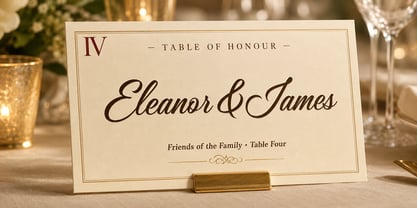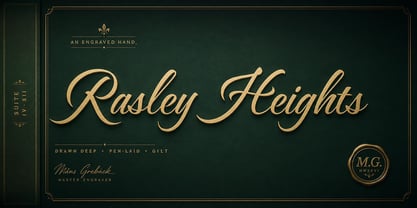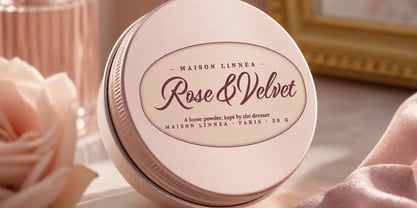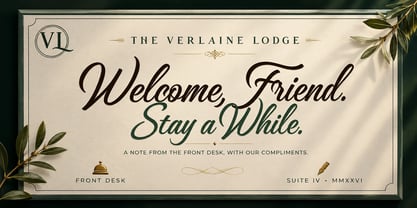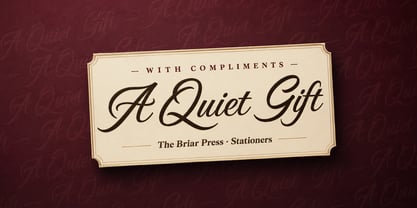
Rasley Heights
Rasley Heights is a high-contrast calligraphy script built around long, drawn-out swashes and broad capitals.
The hand behind it leans hard on the downstroke and lifts to a hairline on the way back up, the way a pointed pen does when the writer trusts the paper. Caps open with a wide loop and finish in a curl that reaches into the next letter. Lowercase moves more steadily, keeping the rhythm while the capitals carry the show.
It belongs on a hotel marquee, the cover plate of a wedding invitation, the brass nameplate of a building that wants to look older than it is.
The font is built with advanced functionality and guaranteed top-notch quality, containing stylistic and contextual alternates, ligatures and more automatic and manual features; all to give you full control and customizability.
It has extensive lingual support, covering all Latin-based languages, from North Europa to South Africa, from America to South-East Asia. It contains all characters and symbols you'll ever need, including all punctuation and numbers.